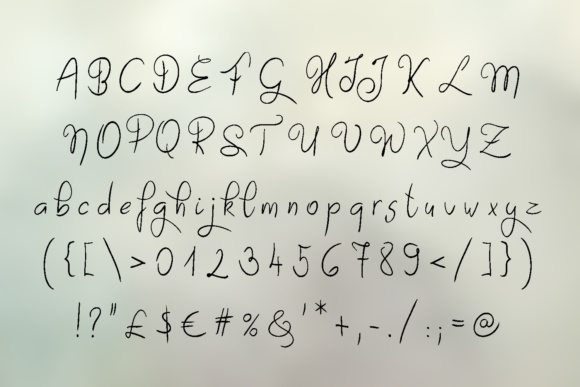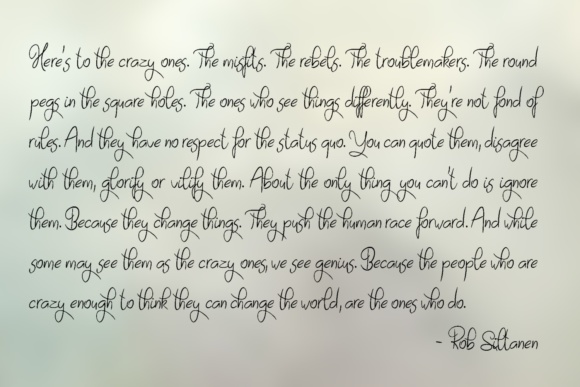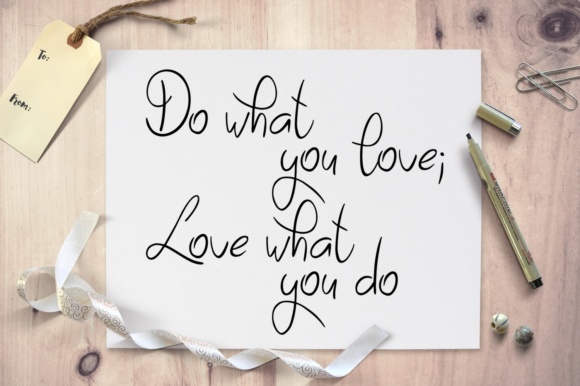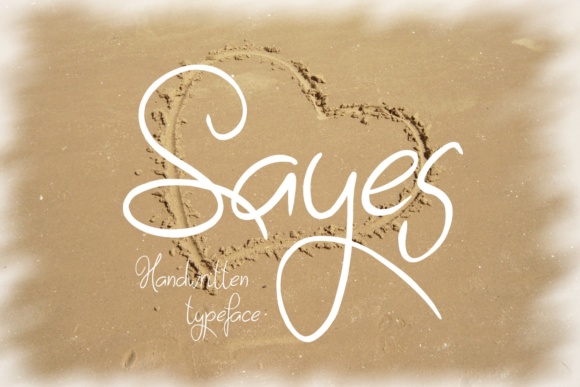
Freebie Wednesday: Sayes Free Handwritten Font
Sayes by Eva Barabasne Olasz is a smooth, handwritten font offered free for a limited time (just 5 days!)